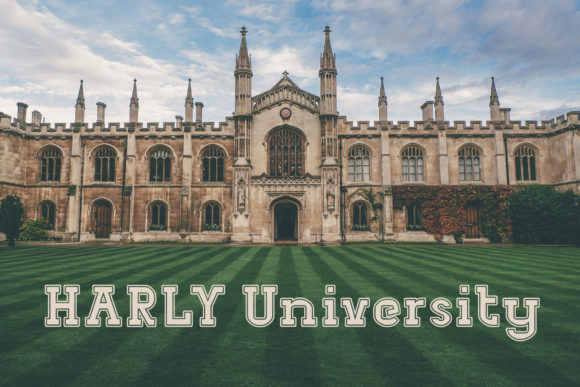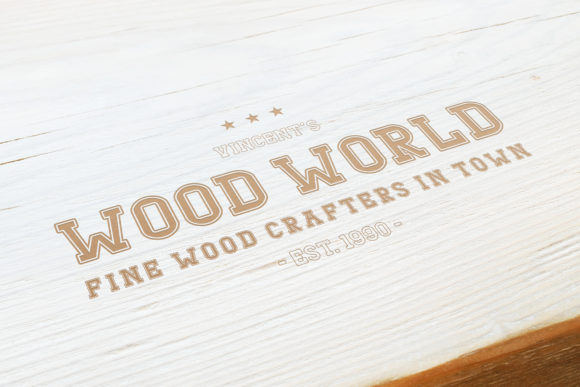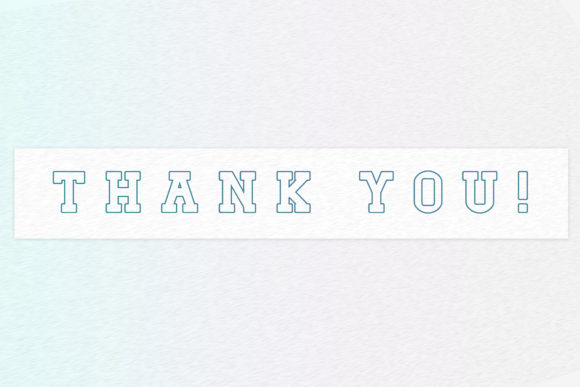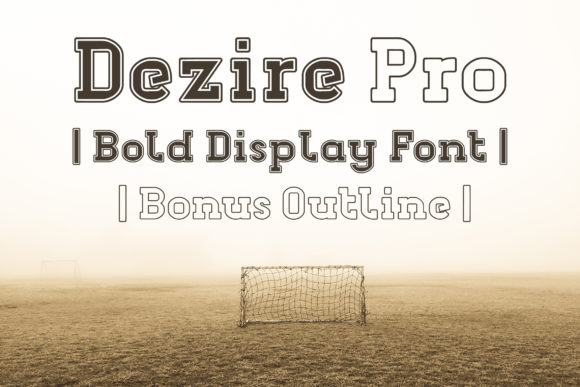
Introducing Dezire Pro Family Font: Elevate Your Designs with Elegance and Versatility
In the world of typography, a font can make or break a design. For designers and crafters, finding the perfect typeface that embodies both style and functionality is a constant quest. This is where the Dezire Pro Family Font comes into play, revolutionizing the way we approach typography in various design projects. The Dezire Pro is a brand new serif family that includes three distinct versions, making it an incredibly versatile tool for a wide range of applications, from corporate branding and fashion designs to sport-related designs and more.
The Dezire Pro Family: A Trio of Elegance and Precision
The Dezire Pro Family Font is not just another addition to the vast sea of typefaces; it’s a carefully crafted collection designed to meet the diverse needs of modern designers. Comprising three versions, this family ensures that you have the right tool for every project. Whether you’re working on a sleek corporate logo, a trendy fashion magazine, or a dynamic sports brand, the Dezire Pro family offers a level of precision and elegance that can elevate your designs to new heights.
Versatility at Its Core
One of the standout features of the Dezire Pro Family Font is its versatility. The three versions included in the family are designed to be complementary yet distinct, allowing for a broad spectrum of design possibilities. This means you can use one version for a bold headline, another for body text, and the third for captions or sidebars, all while maintaining a cohesive visual identity across your project.
The Dezire Pro Family Font is not limited to a specific genre of design. Its applications are vast and varied:
- Corporate Branding: Create a lasting impression with a professional and clean look that speaks volumes about your brand’s values and mission.
- Fashion Designs: Add a touch of elegance and sophistication to your fashion projects, from magazine layouts to brand advertisements.
- Sport Related Designs: Yes, you read that right! The Dezire Pro family can also bring a dynamic and energetic feel to sports-related designs, making it perfect for logos, jerseys, and marketing materials.
- Brand Titles: Use the Dezire Pro for your brand titles to ensure they stand out with a unique and compelling aesthetic.
Why Choose Dezire Pro Family Font?
With so many fonts available, why should Dezire Pro be your go-to choice? Here are a few compelling reasons:
- Uniqueness: The Dezire Pro offers a fresh take on serif typography, giving your designs a distinctive edge.
- Legibility: Despite its elegant design, the Dezire Pro family maintains high legibility, making it suitable for both headings and body text.
- Consistency: Using a font family ensures consistency across your designs, which is crucial for building a strong brand identity.
The Dezire Pro Family Font is more than just a typeface; it’s a design solution that caters to the evolving needs of designers and crafters. Its elegant design, versatility, and precision make it an invaluable asset for anyone looking to elevate their design projects. Whether you’re working on corporate branding, fashion designs, or sport-related projects, the Dezire Pro family is poised to become your trusted companion in the world of typography.
Embrace the power of Dezire Pro Family Font and discover a new dimension of design possibilities. Let your creativity soar with a font that combines elegance, versatility, and functionality in a way that redefines the boundaries of typographic excellence.